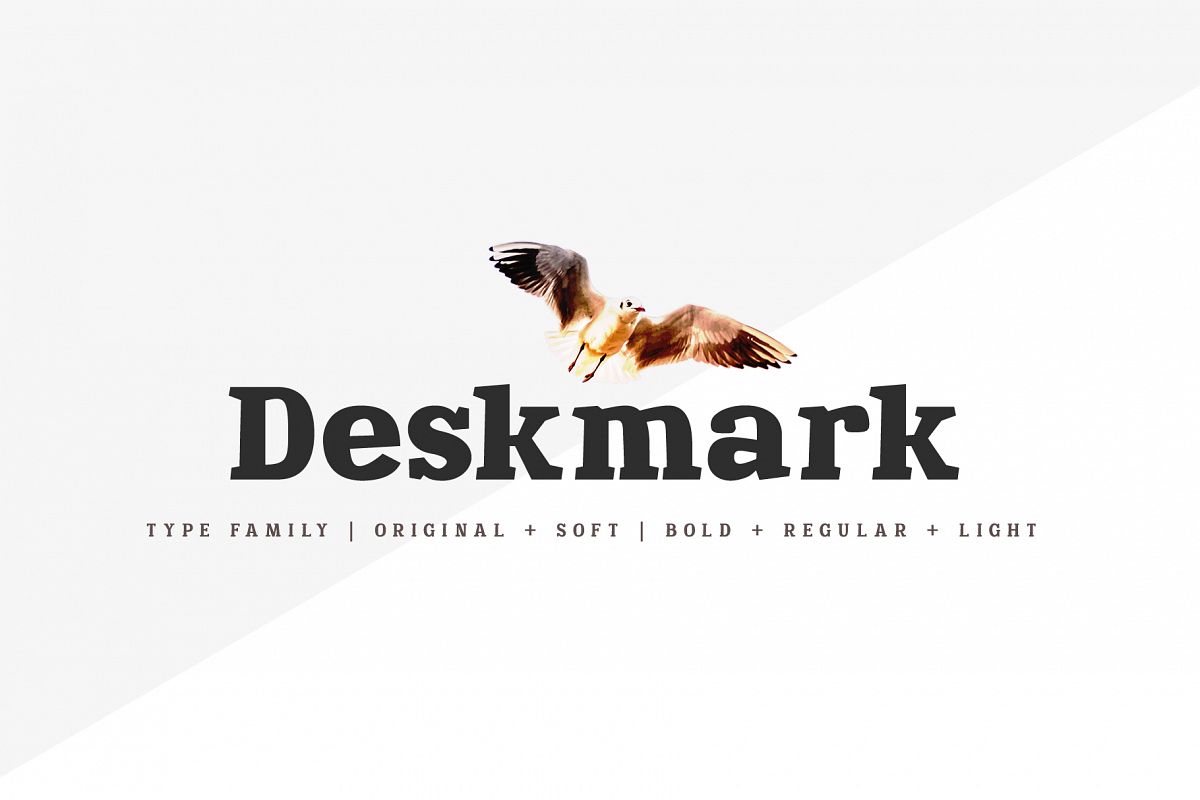
Deskmark
Hi! Introducing Deskmark Slab Pro Typefamily. Original and soft version. 3 weight for each version, bold, regular and light. Language support: Contains full set of Latin alphabet, including diacritical marks for European languages and Cyrillic alphabets.
Deskmark